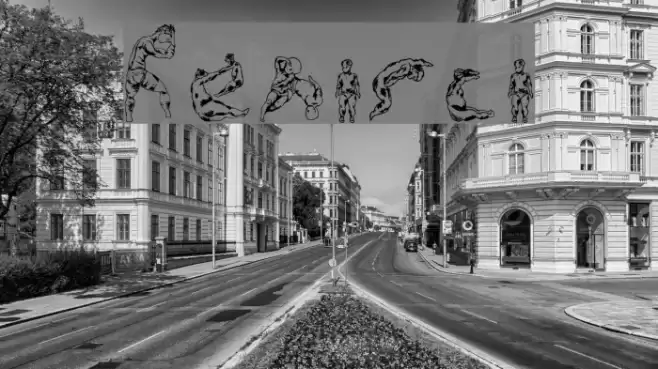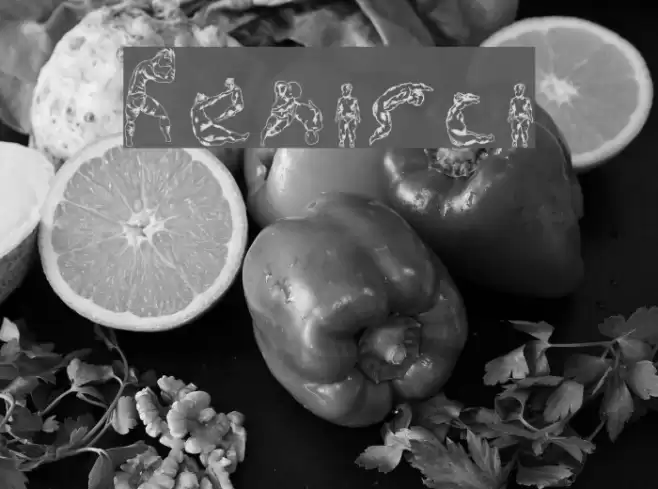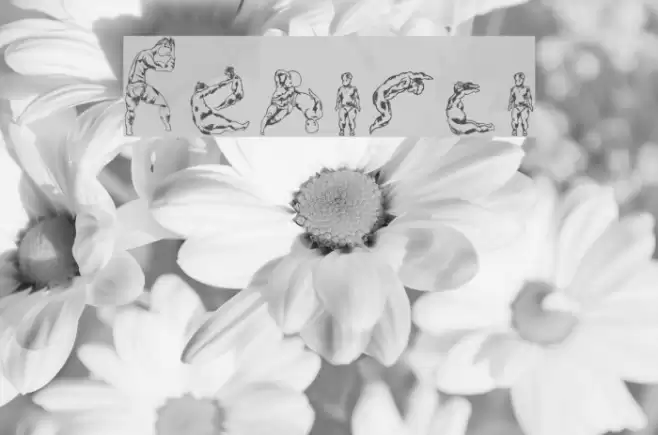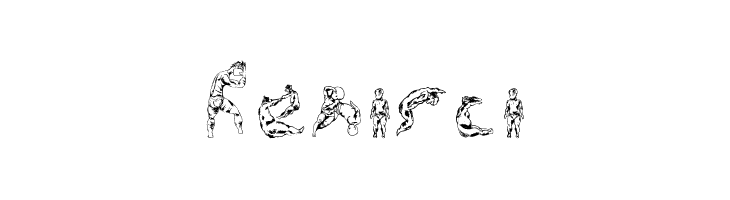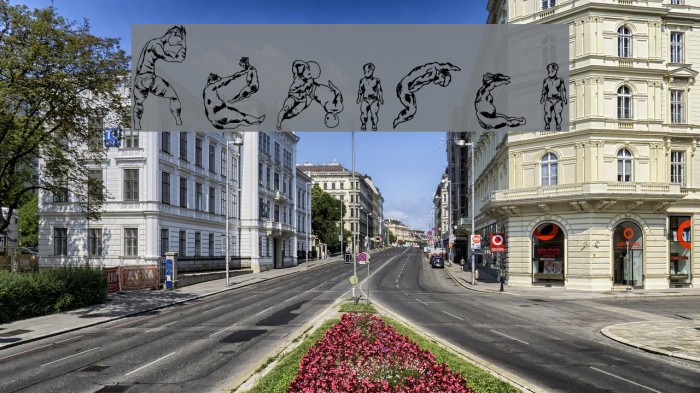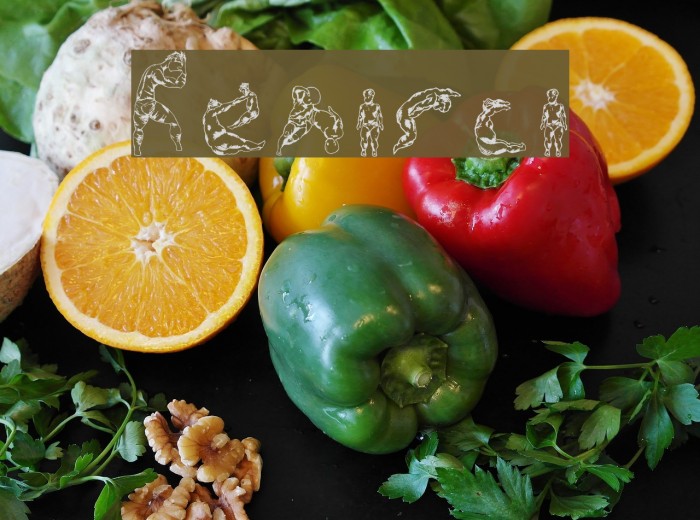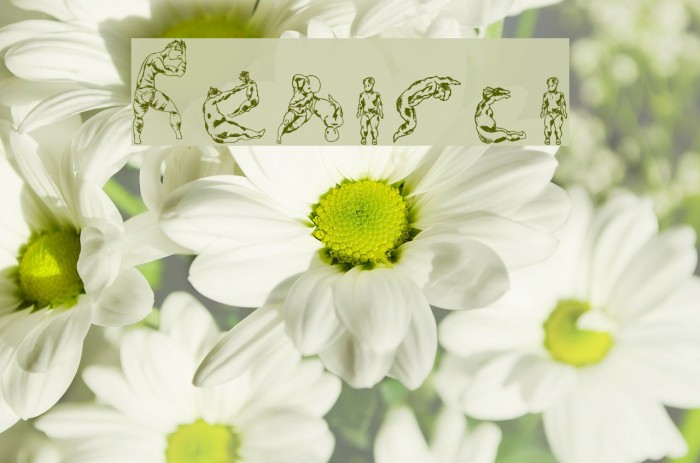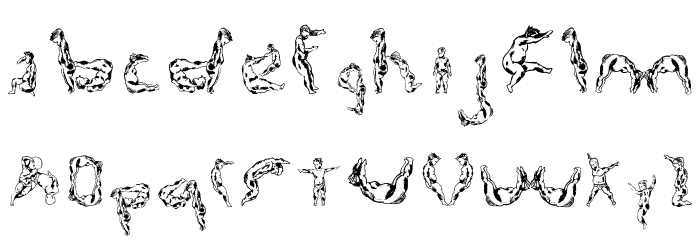
Renisci Font
Renisci Description
This unique and artistic font is crafted using human figures to form each letter and character. The design is highly creative, with each character composed of intricately posed figures, creating a dynamic and visually engaging appearance. The font is decorative and unconventional, making it stand out with its imaginative use of human forms. It is not suitable for body text due to its complex design but can be an excellent choice for artistic projects, posters, or any creative work that requires a distinctive and eye-catching typeface.
An artistic font using human figures to form each character, ideal for creative projects from Uncategorized fonts.
- Proposed Projects: Artistic posters, creative branding, unique invitations, and any project needing a standout decorative font.
- Overall Style: Artistic, Decorative
- Use Case: Logos, Posters, Creative projects